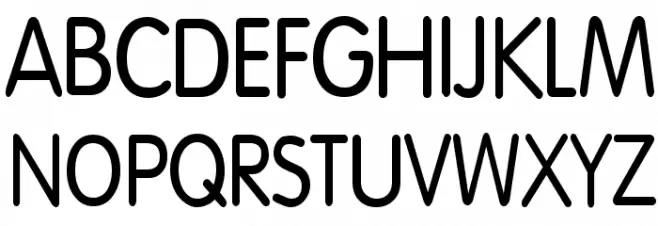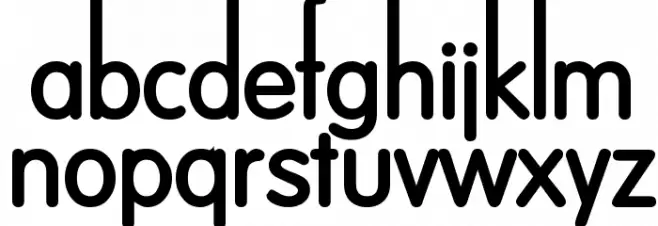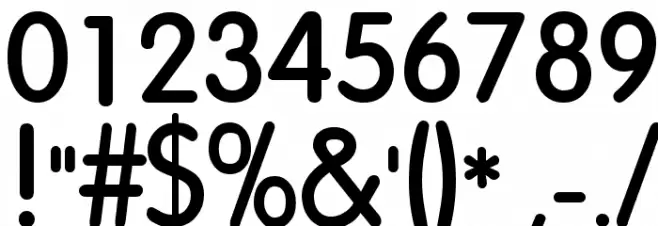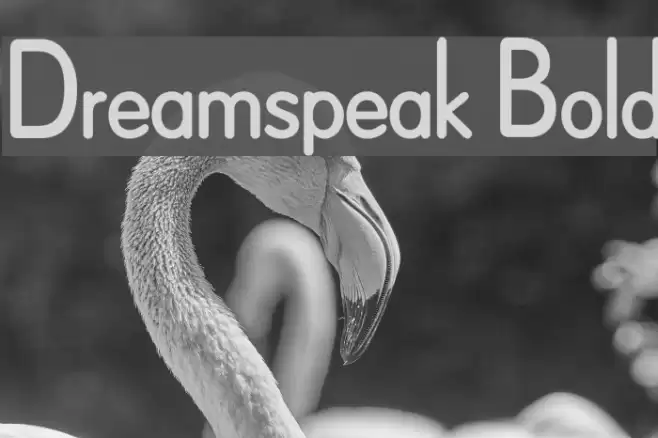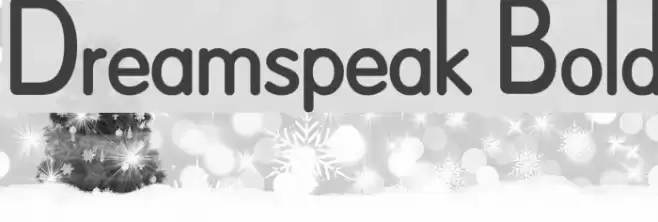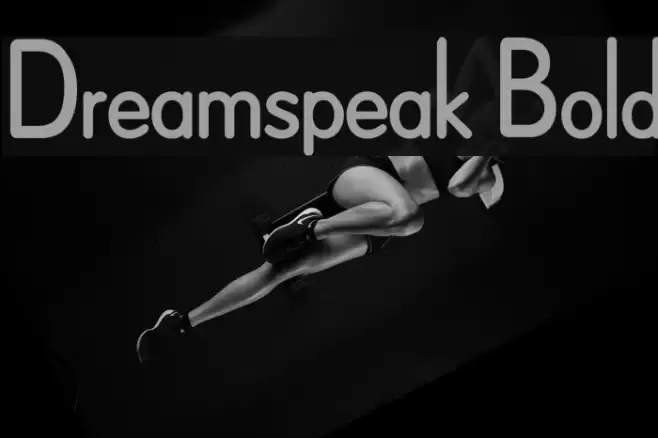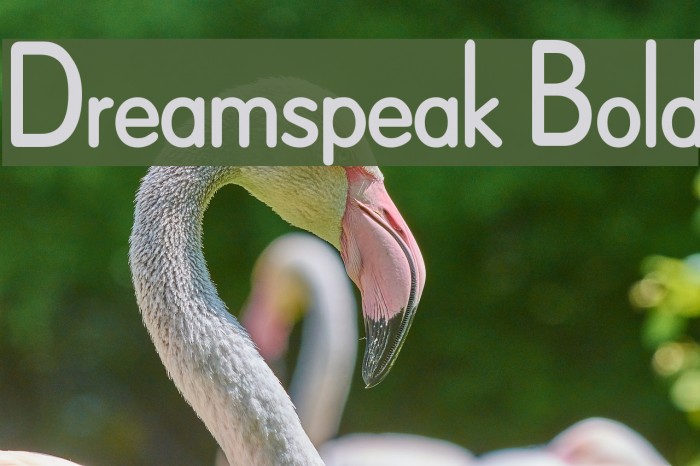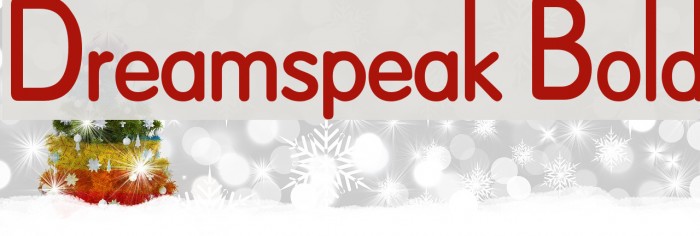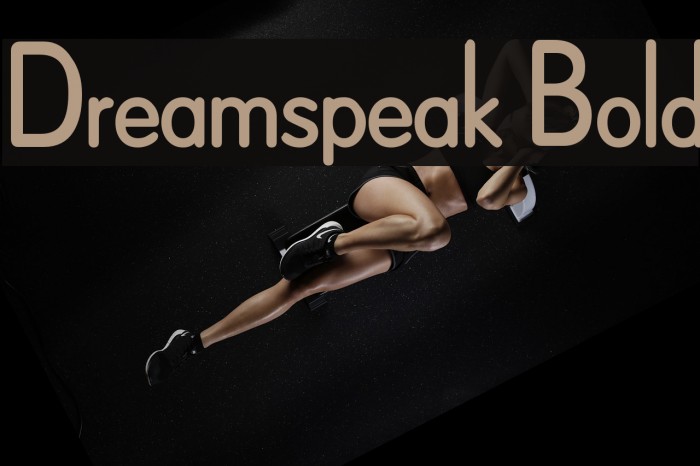
Dreamspeak Bold
This font features a bold, rounded sans-serif style that exudes a modern and friendly vibe. The characters are evenly spaced with a consistent stroke width, providing a clean and approachable appearance. The uppercase and lowercase letters maintain a harmonious balance, while the numerals and special characters are designed to complement the overall aesthetic. Its simplicity and clarity make it highly legible, suitable for a variety of applications where readability is key.
A bold, rounded sans-serif font with a modern and friendly appearance.
- Proposed Projects: Ideal for branding, advertising, packaging, and digital media projects where a modern and approachable look is desired.
- Use Case: Headlines, Logos, Branding